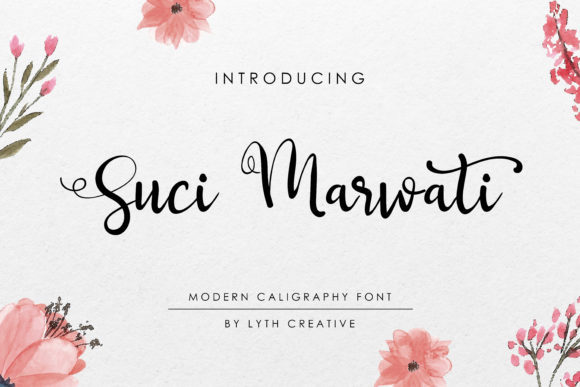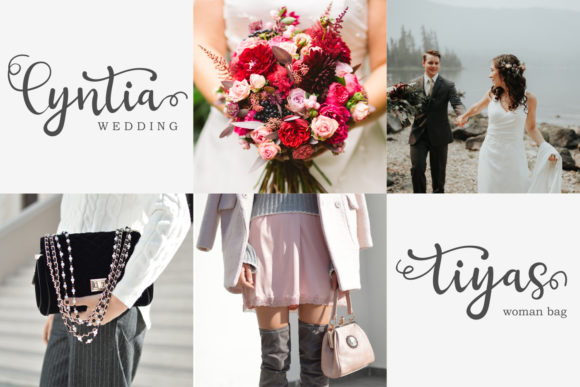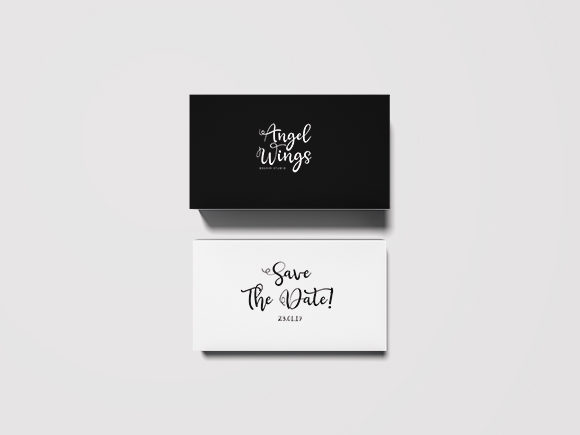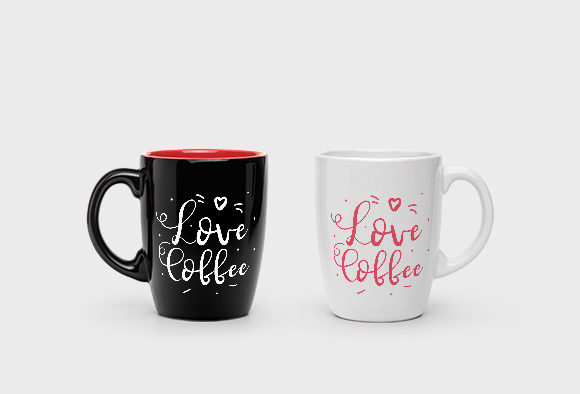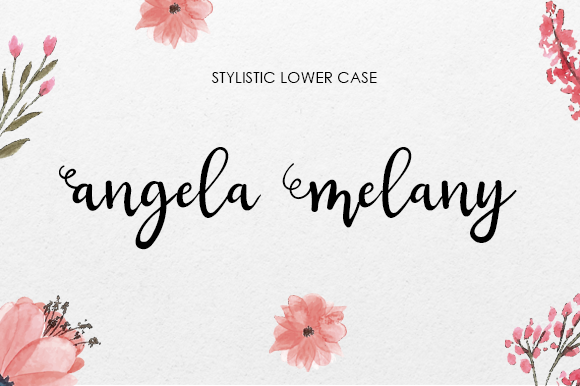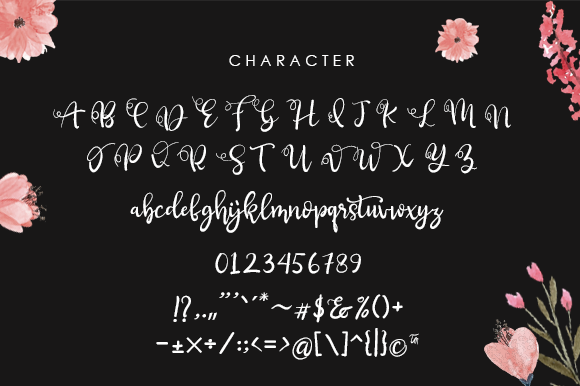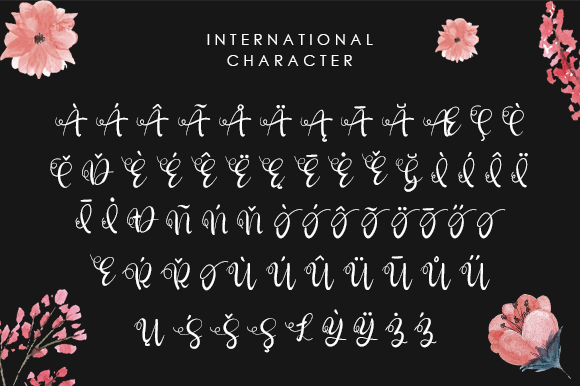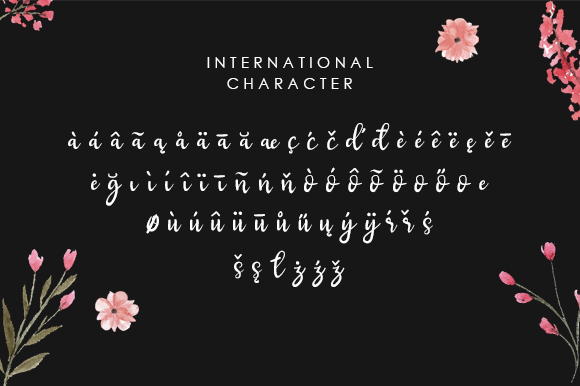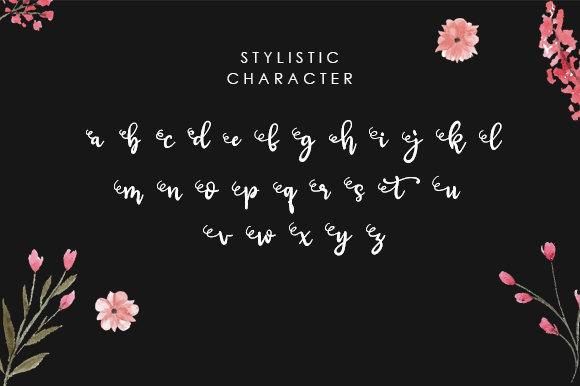
Suci Marwati Font
About Suci Marwati Font
The Suci Marwati is a lovely modern calligraphy font. It’s combining the classic style of calligraphy with a more modern style.
It can be used for various purposes such as logos, wedding invitations, t-shirts, letterheads, signage’s, labels, and much more!